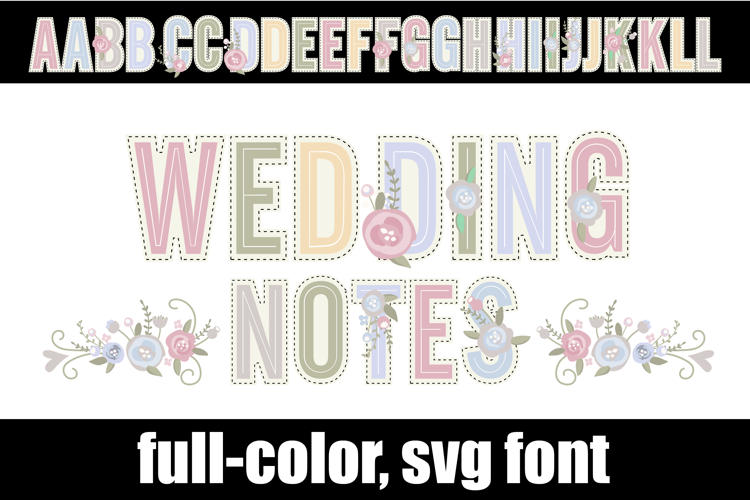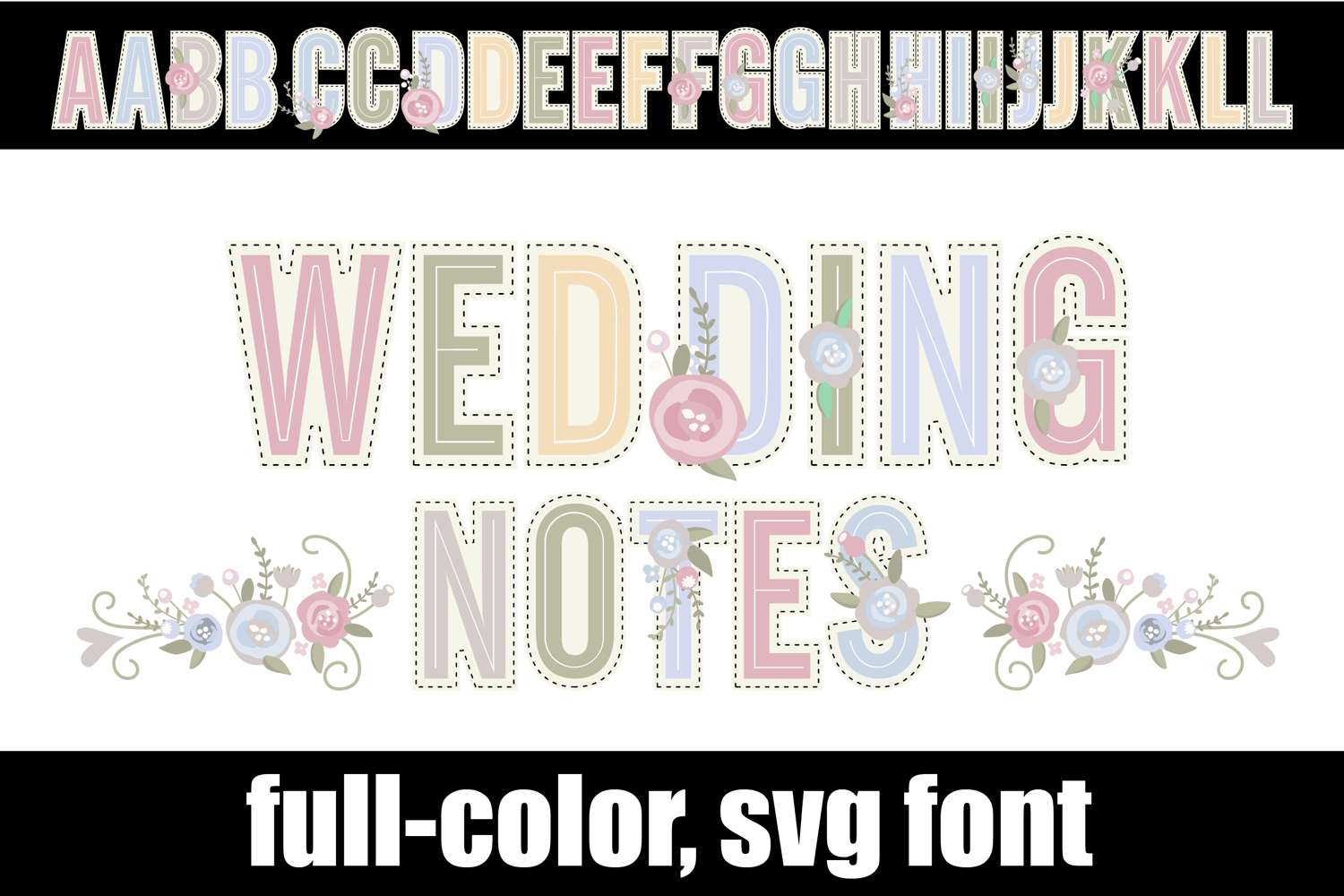
Wedding Notes Color Font
This full-color, sans serif font sports pastel florals. Type the greater than and less than glyphs to get the flourished florals like in the example.There is an alt case of additional colors of each letter that you can access through your system's character map.